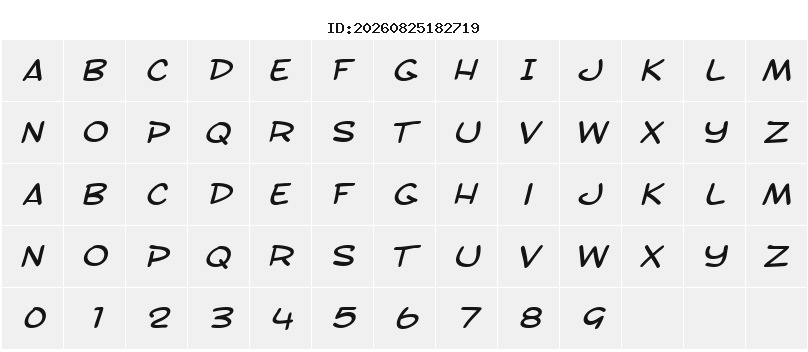
SF Toontime Extended Preview
• Font Name: SF Toontime Extended
• Font ID: ShyFontsTypeFoundry: SF Toontime Extended Italic: 2000
• Full Font Name: SF Toontime Extended Italic
• Designer: ShyFonts Type Foundry
About SF Toontime Extended.ttf
SF Toontime Extended.ttf is a modern, elegant sans-serif font designed for ultimate readability and visual harmony. Perfect for branding, headlines, web design, and print materials.